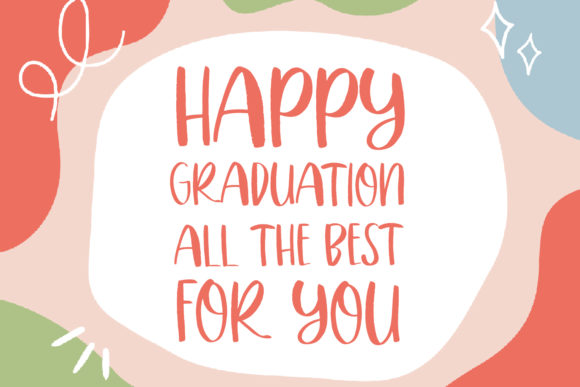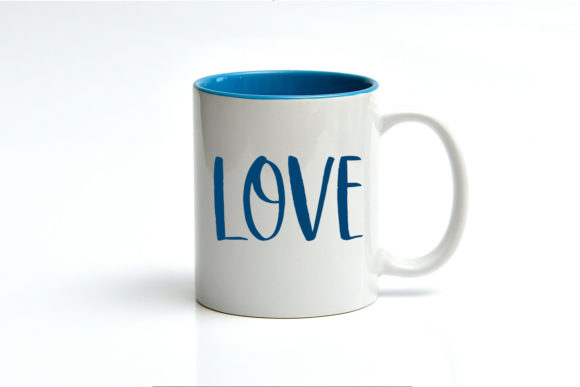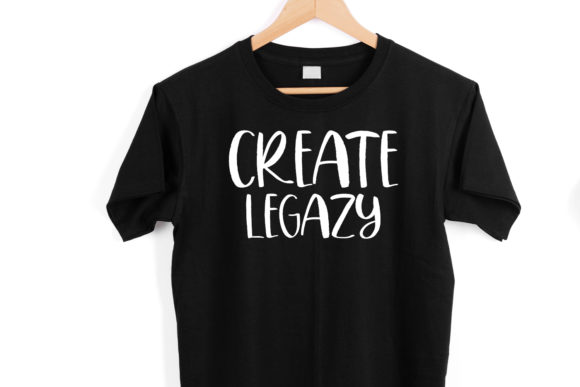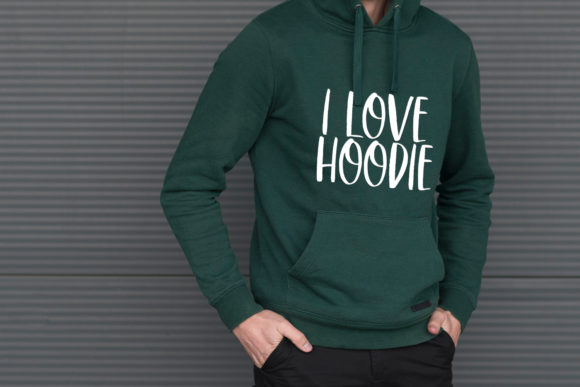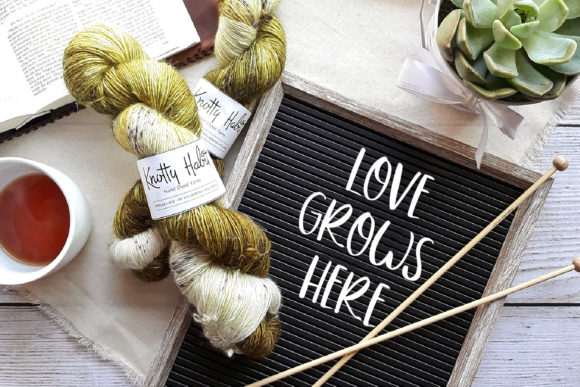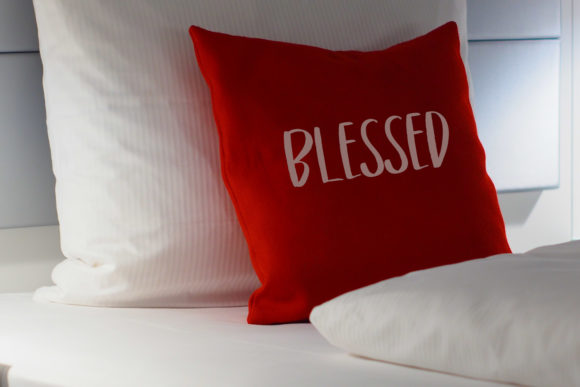
Introduction to Pinky Talk Font Font
Fonts play a crucial role in design, and the Pinky Talk Font font is a typeface that brings both character and versatility to any project. Whether you’re working on a branding project, a website, or a print design, the Pinky Talk Font font offers a unique style that can elevate your work.
Pinky Talk is a fun, tall and casual display font.
Add this fresh font to your designs and make them come alive .
Key Features of Pinky Talk Font Font
Why Choose Pinky Talk Font Font?
The Pinky Talk Font font is more than just a typeface – it’s a design tool that helps you communicate your message with style and clarity. Its unique character set and versatile design make it suitable for a wide range of applications, from elegant invitations to bold headlines.
With its carefully crafted letterforms and balanced proportions, the Pinky Talk Font font ensures readability and visual appeal across all mediums.
What makes Pinky Talk Font font special?
The Pinky Talk Font font stands out with its unique design, exceptional readability, and versatility across various design applications.